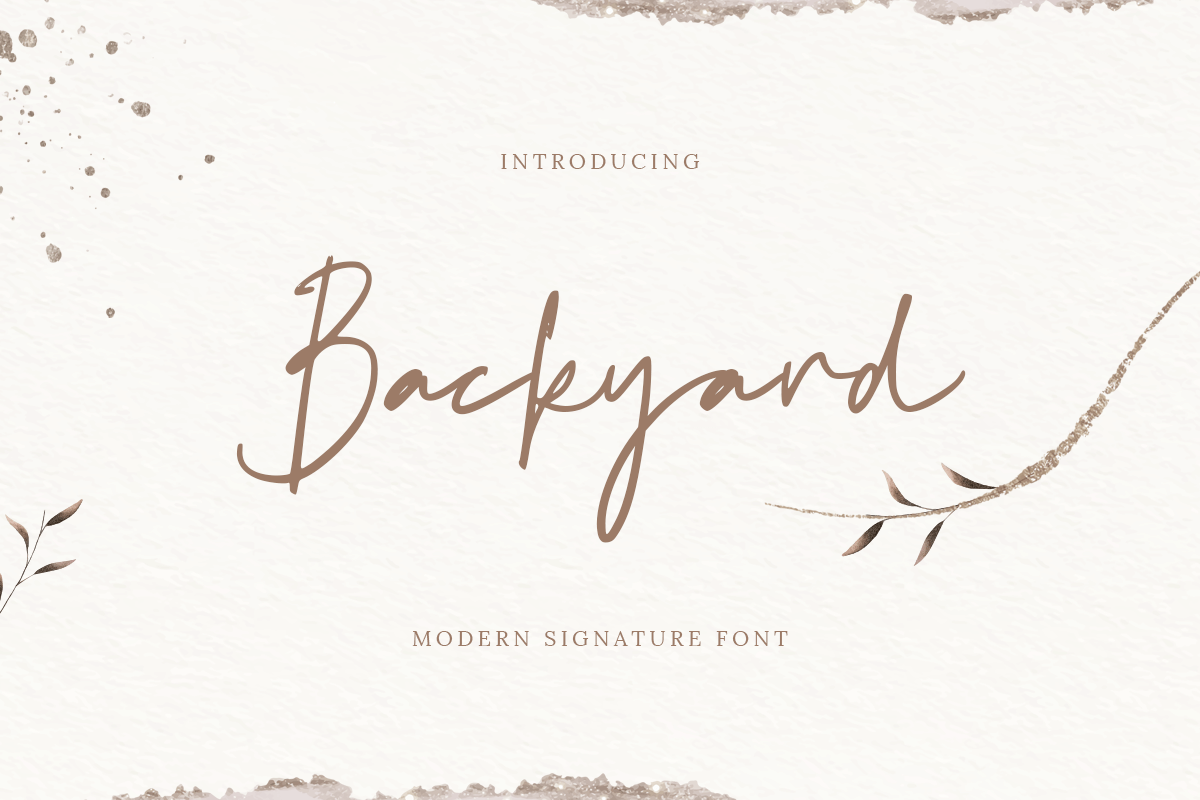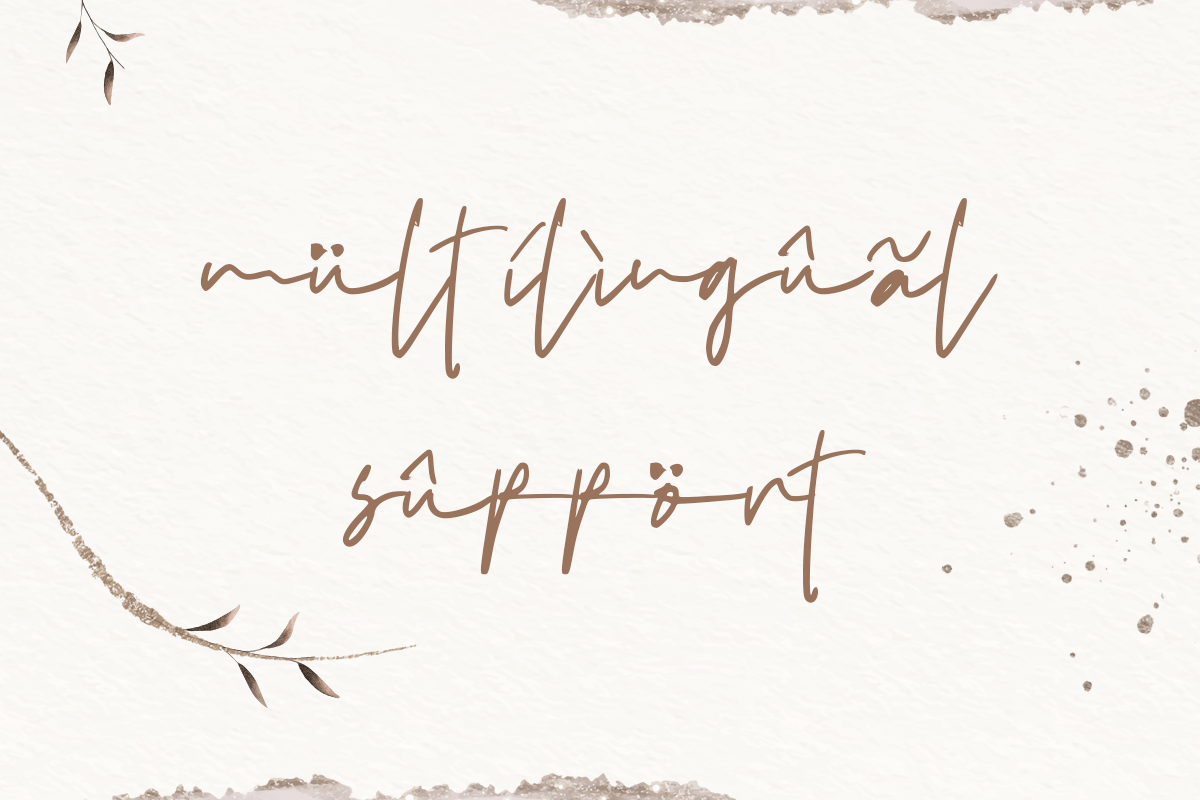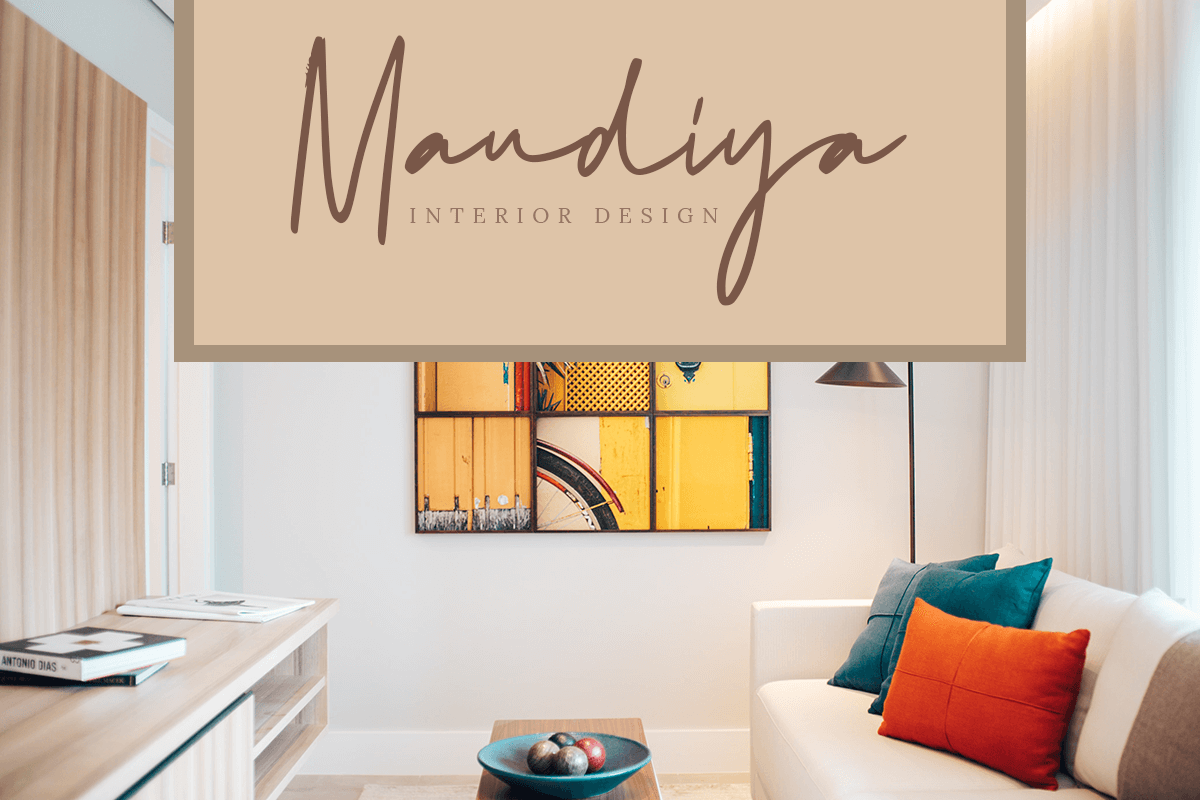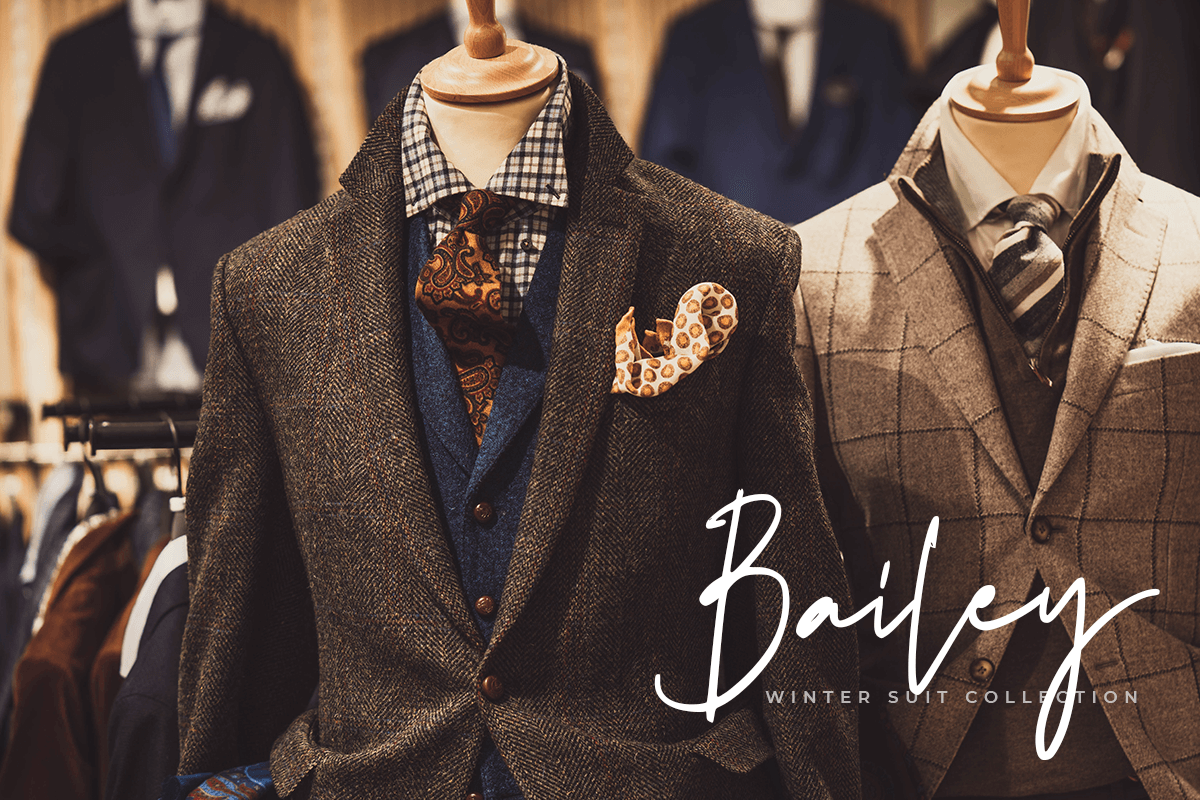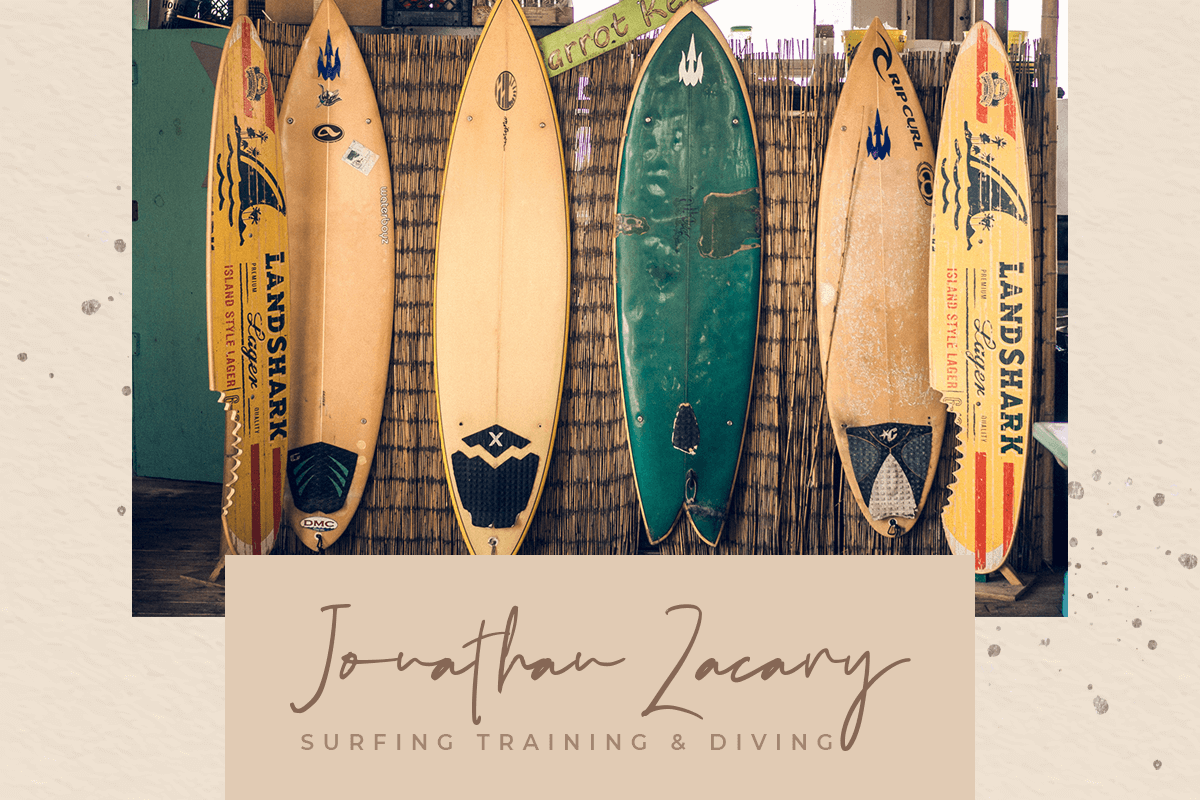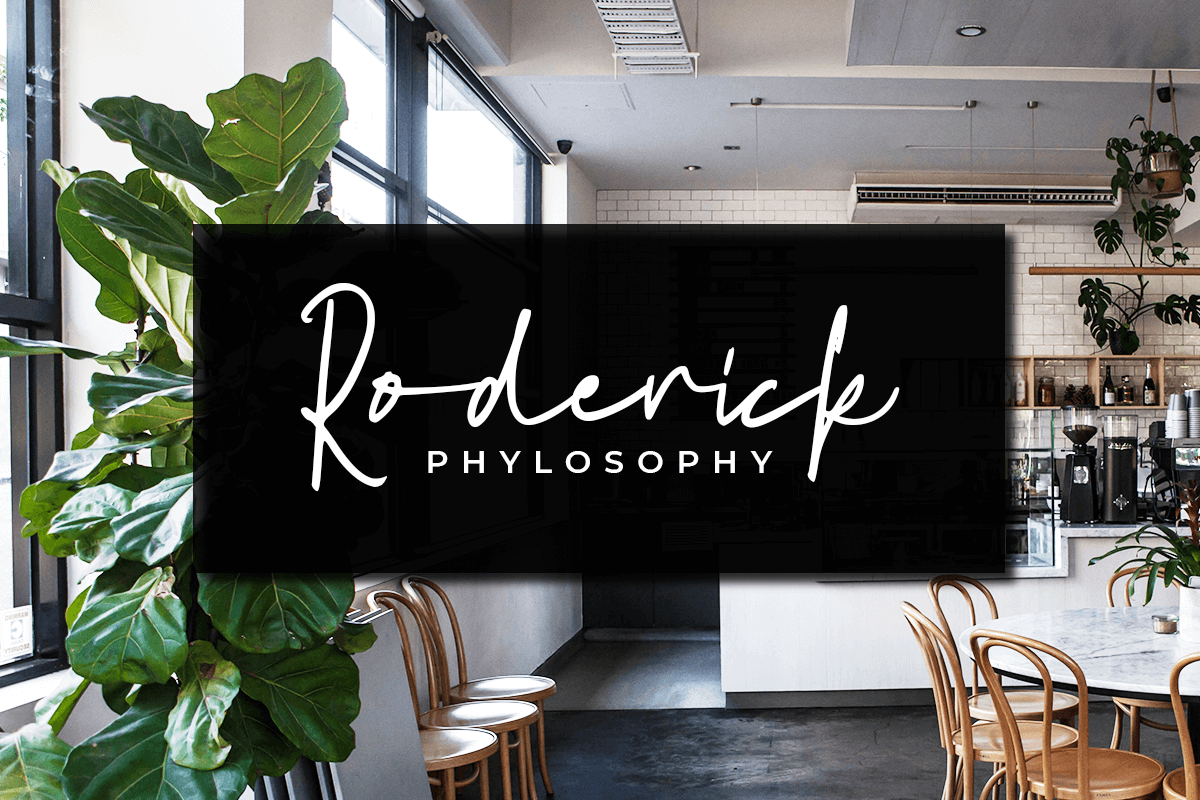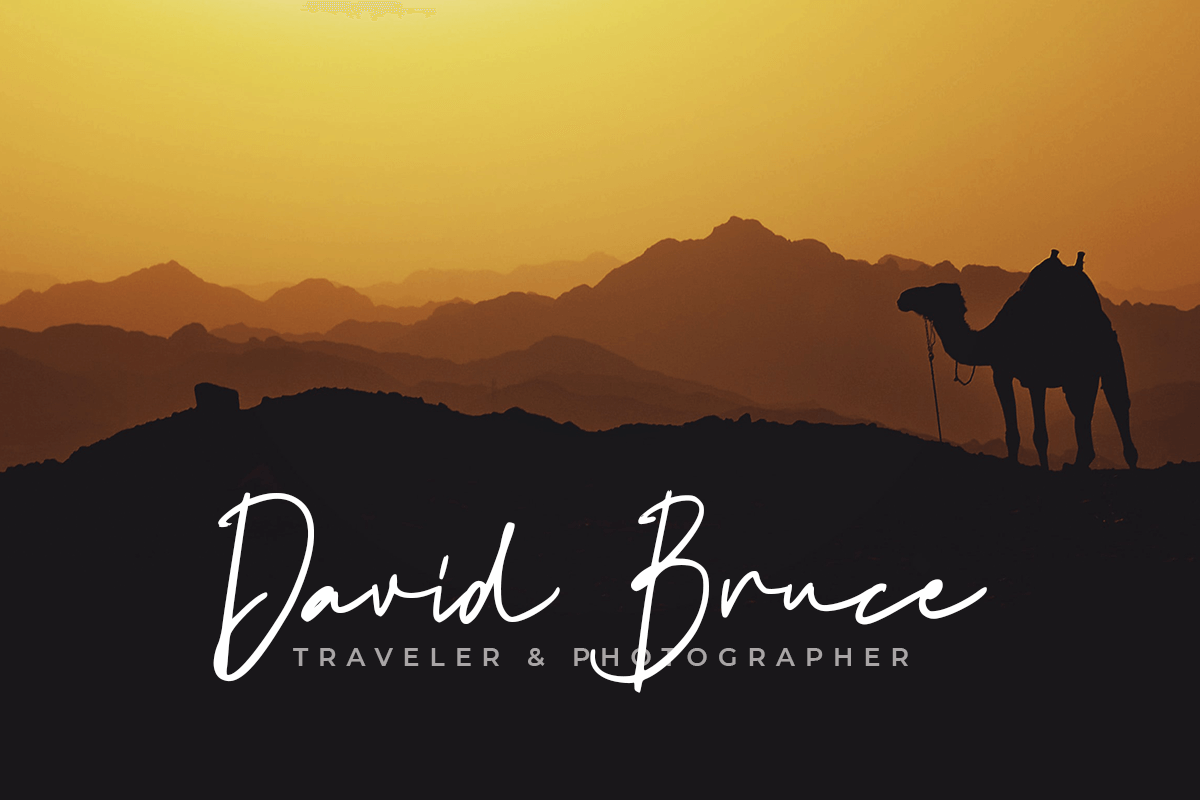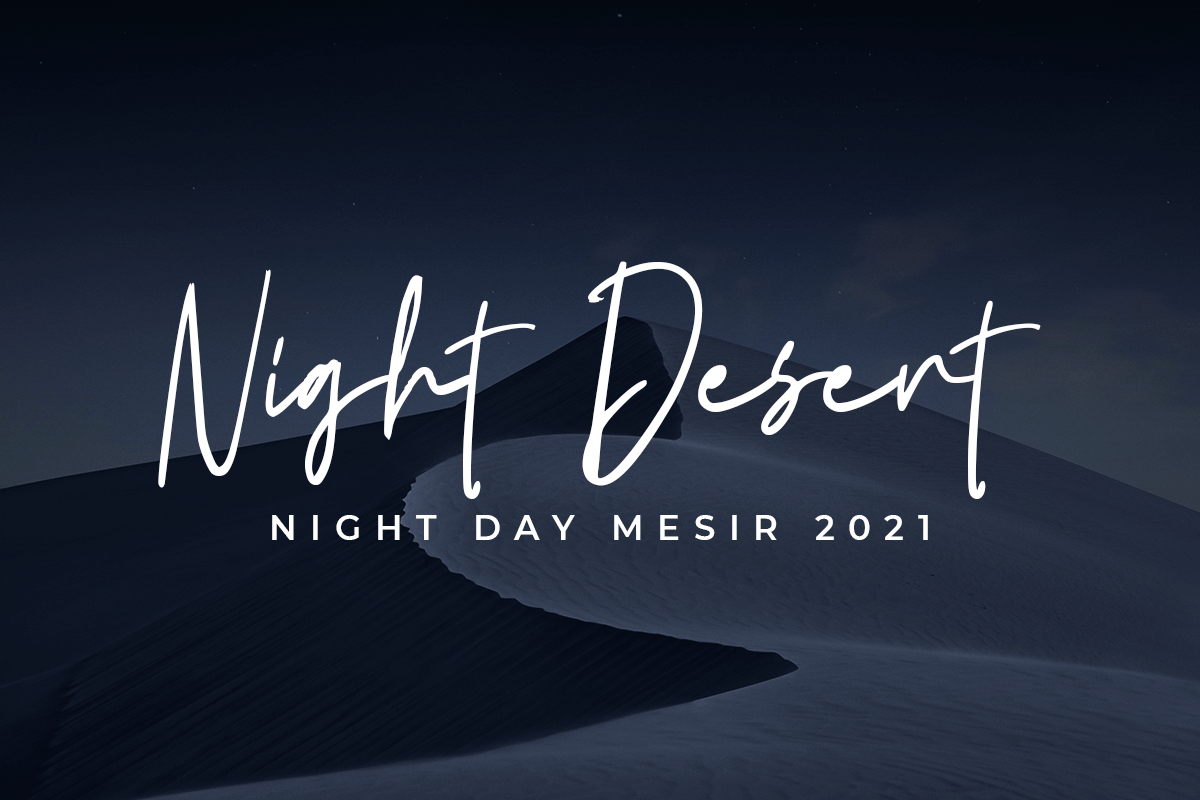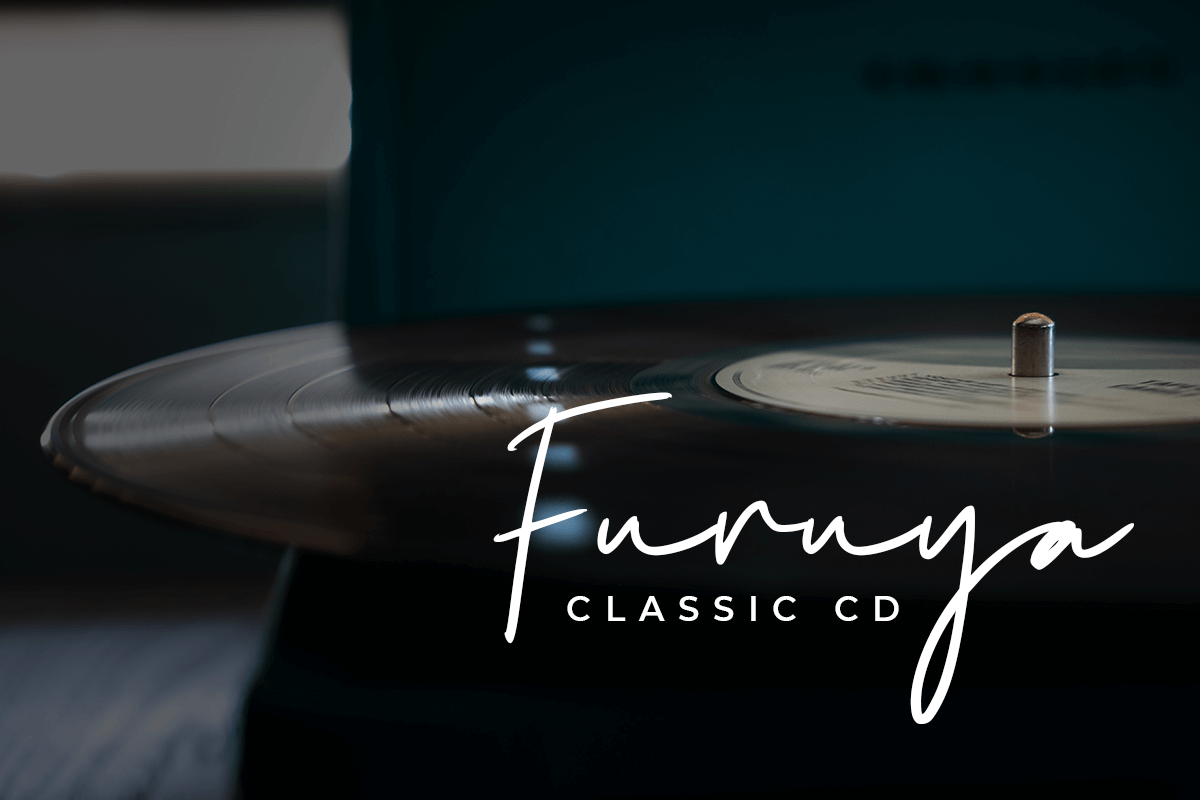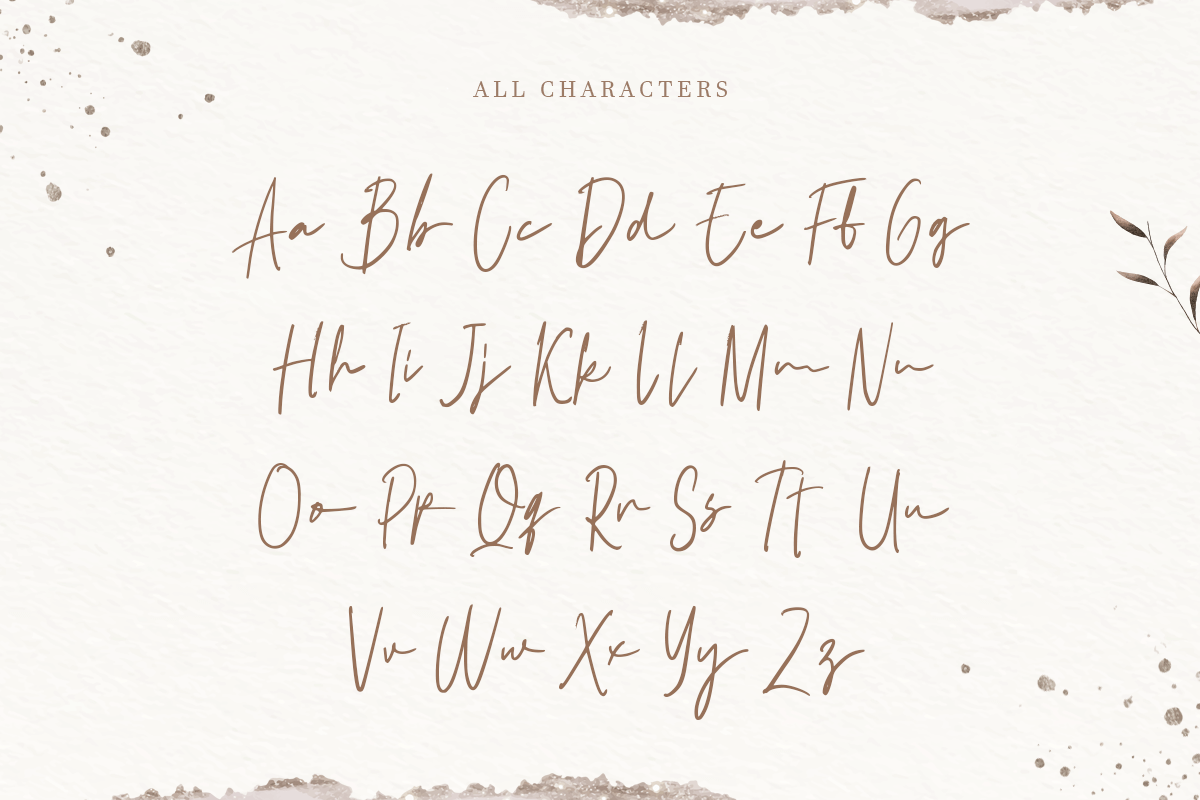
Backyard
-Modern Signature Font
Backyard
Backyard is A Modern Signature font with nice and modern style and so beautiful. This font specially crafted for your project design or professional logo, modern for any designs such as product, merchandise, and so many more with easy to use but unique results are so professional.
Enjoy to Design any your needs with cute, cheerful, and charming feel.